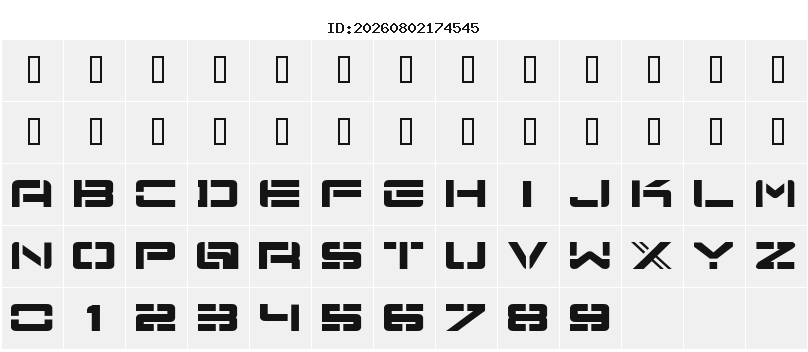
• Font Name: Nu School Munitions
Nu School Munitions.ttf is a modern, elegant sans-serif font designed for ultimate readability and visual harmony. Perfect for branding, headlines, web design, and print materials.